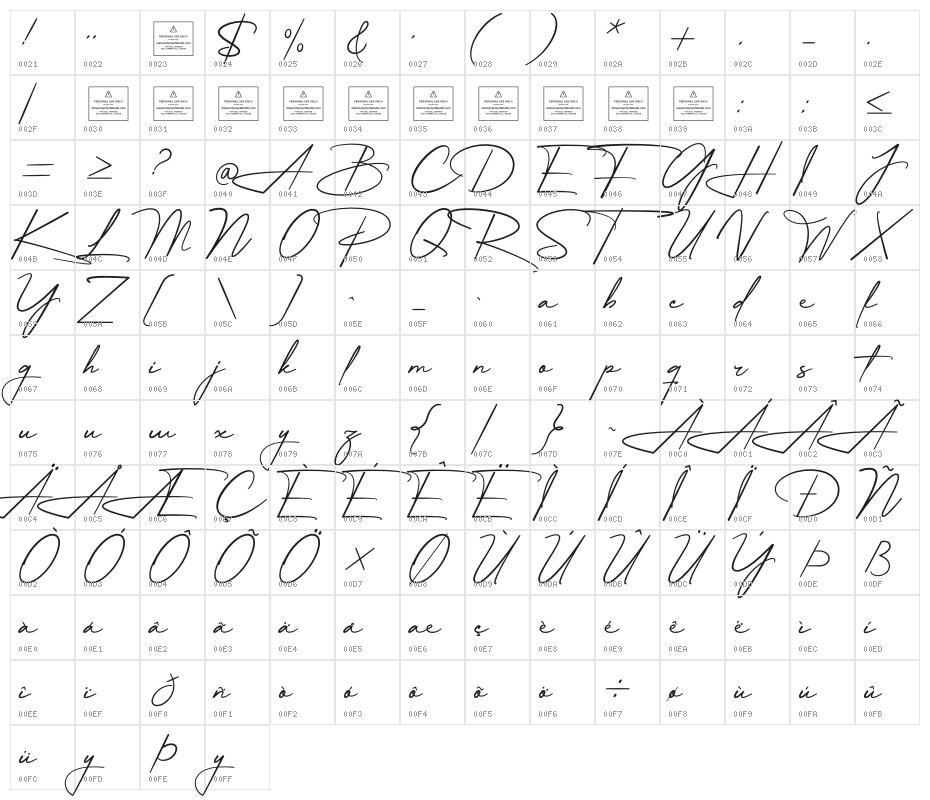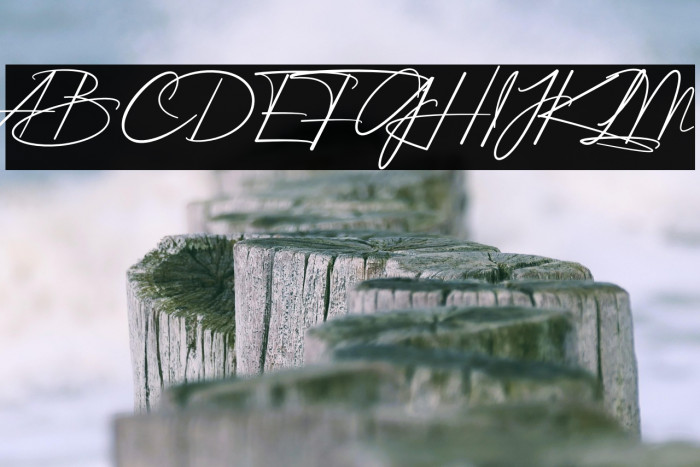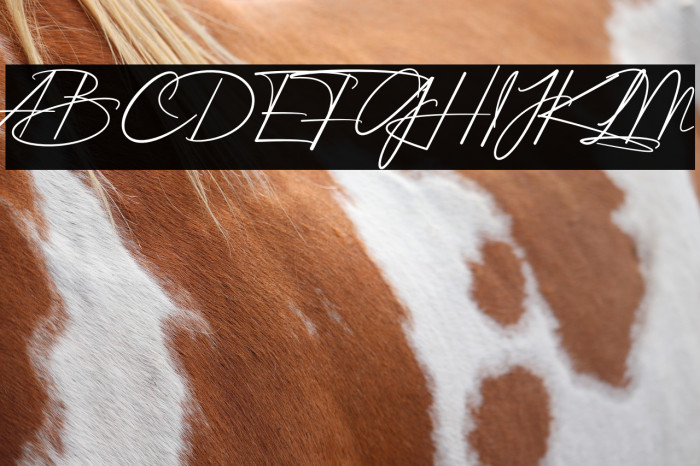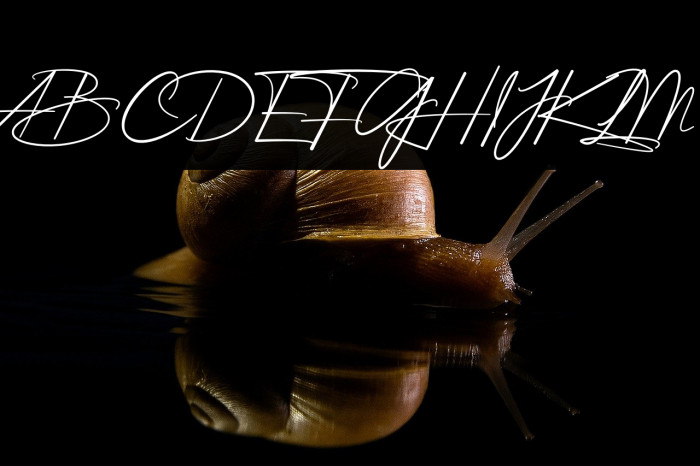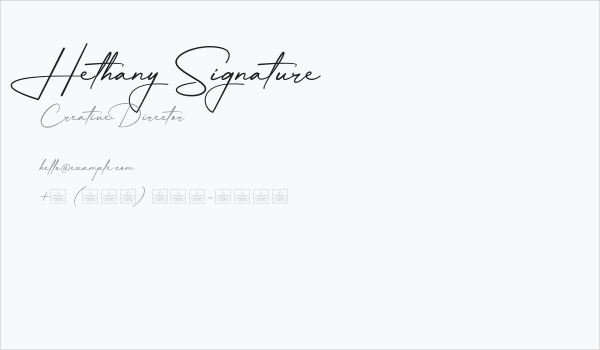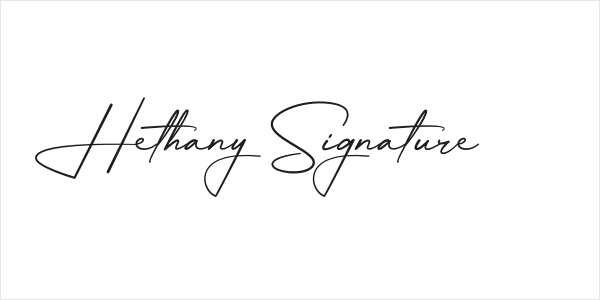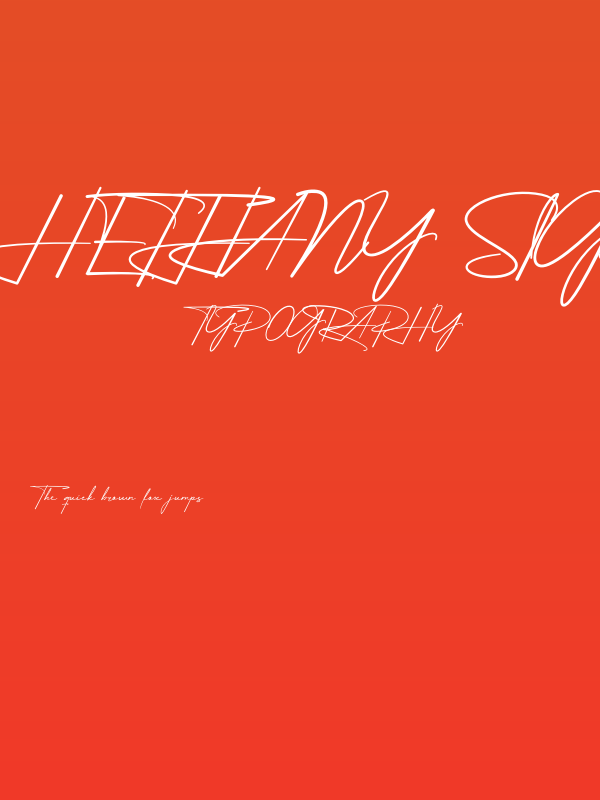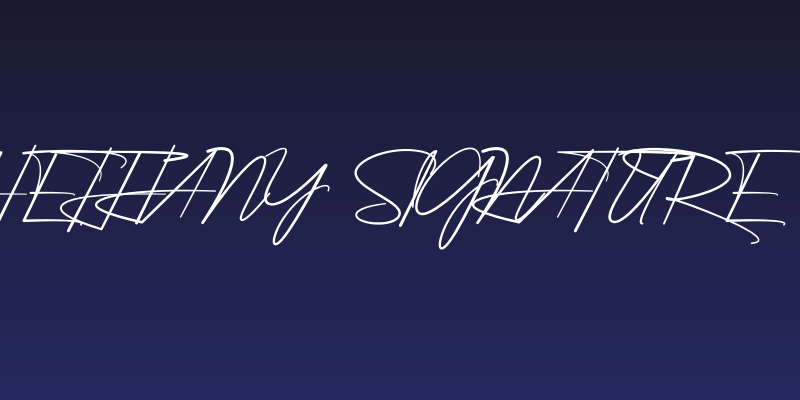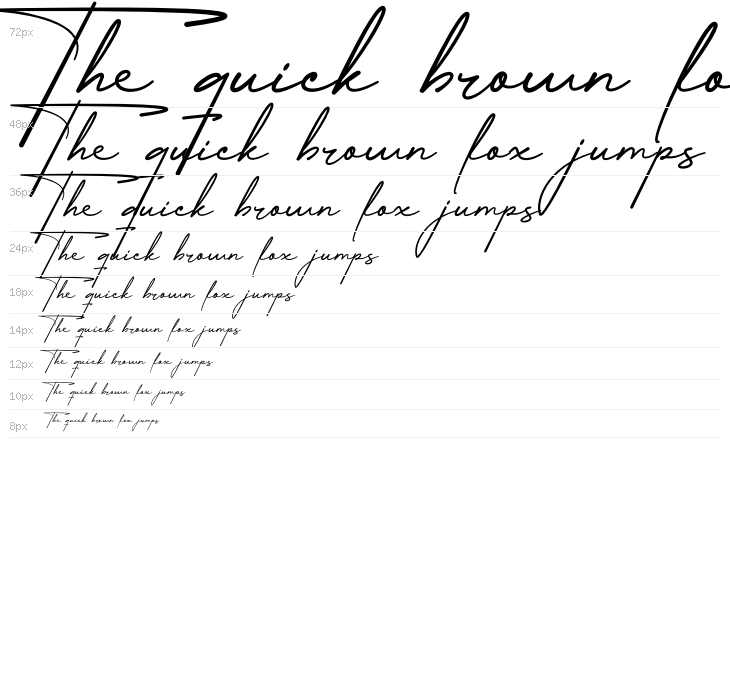
Hethany Signature Font
Hethany Signature Description
This elegant script font features a flowing, handwritten style with a sophisticated and artistic flair. The uppercase letters are characterized by their sweeping curves and loops, while the lowercase letters maintain a consistent fluidity, enhancing the overall graceful appearance. The font's thin strokes and delicate lines contribute to its refined aesthetic, making it suitable for projects that require a touch of elegance and personal expression. The special characters are seamlessly integrated, maintaining the font's cohesive style.
| Proposed Projects | Ideal for wedding invitations, personal branding, greeting cards, and elegant logos. |